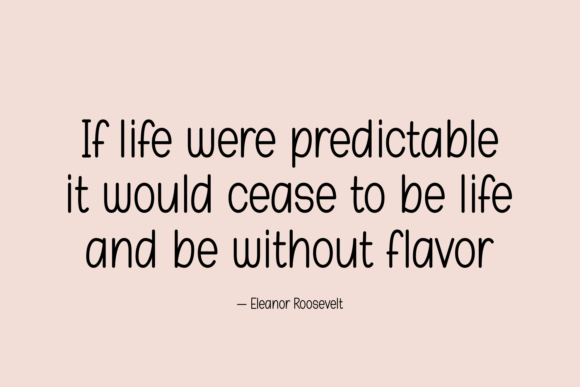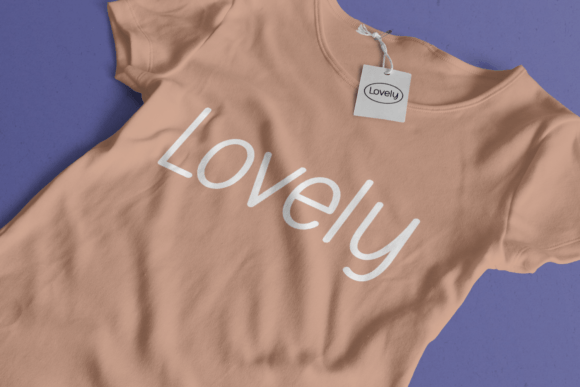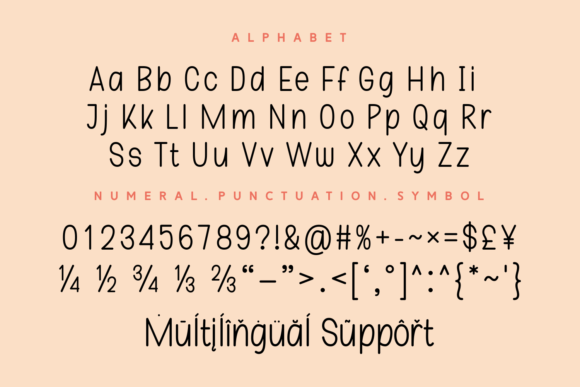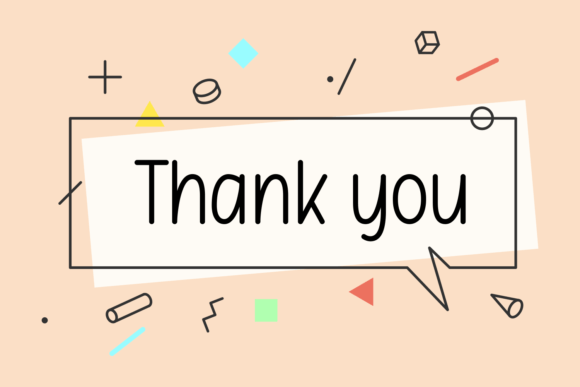
Introducing Card Notes Font: The Epitome of Elegance and Simplicity
In the realm of typography, few fonts manage to strike a balance between elegance and simplicity. However, Card Notes Font is a notable exception. This minimalist handwritten font has been gaining attention for its clean, slender lines and effortless strokes, making it an ideal choice for designers and crafters looking to infuse their creations with a sense of sophistication and authenticity.
The Characteristics of Card Notes Font
Card Notes Font boasts a unique set of characteristics that set it apart from other fonts. Its slender lines and delicate strokes evoke a sense of refinement, making it perfect for designs that require a touch of elegance. The font’s minimalist approach ensures that it remains unobtrusive, allowing the content to take center stage while still providing a visually appealing aesthetic.
Versatility and Applications
One of the standout features of Card Notes Font is its versatility. Its clean and simple design makes it suitable for a wide range of applications, from:
- Stationery and Invitations: Add a touch of sophistication to your wedding invitations, birthday cards, and other stationery with Card Notes Font.
- Branding and Packaging: Use Card Notes Font to create elegant and memorable brand identities, product labels, and packaging designs.
- Digital Media: Incorporate Card Notes Font into your website, social media graphics, and email newsletters to convey a sense of refinement and professionalism.
- Crafting and DIY Projects: Perfect for crafters, Card Notes Font can be used to create beautiful journal entries, scrapbook pages, and handmade cards.
Why Choose Card Notes Font?
With so many fonts available, why should you choose Card Notes Font for your next project? Here are a few compelling reasons:
- Elegance and Sophistication: Card Notes Font exudes a sense of refinement and luxury, making it perfect for high-end designs.
- Readability: The font’s clean lines and simple design ensure that your content remains easy to read, even at smaller font sizes.
- Uniqueness: Card Notes Font’s distinctive style sets it apart from more traditional fonts, allowing your designs to stand out from the crowd.
- Flexibility: The font’s versatility makes it suitable for a wide range of applications, from digital media to print materials.
Tips for Using Card Notes Font
To get the most out of Card Notes Font, consider the following tips:
- Pair with Bold Fonts: Combine Card Notes Font with bold, contrasting fonts to create visual interest and hierarchy.
- Experiment with Colors: Try pairing Card Notes Font with a range of colors to add depth and personality to your designs.
- Use for Headings and Titles: Take advantage of Card Notes Font’s elegance by using it for headings and titles, and pair it with a simpler font for body text.
Card Notes Font is a beautiful, minimalist handwritten font that offers a perfect blend of elegance and simplicity. Its versatility, readability, and unique style make it an excellent choice for designers and crafters looking to add a touch of sophistication to their creations. Whether you’re working on a branding project, crafting a handmade card, or designing a website, Card Notes Font is sure to impress.
So why not give Card Notes Font a try? With its effortless strokes and clean lines, it’s sure to become a staple in your design toolkit.